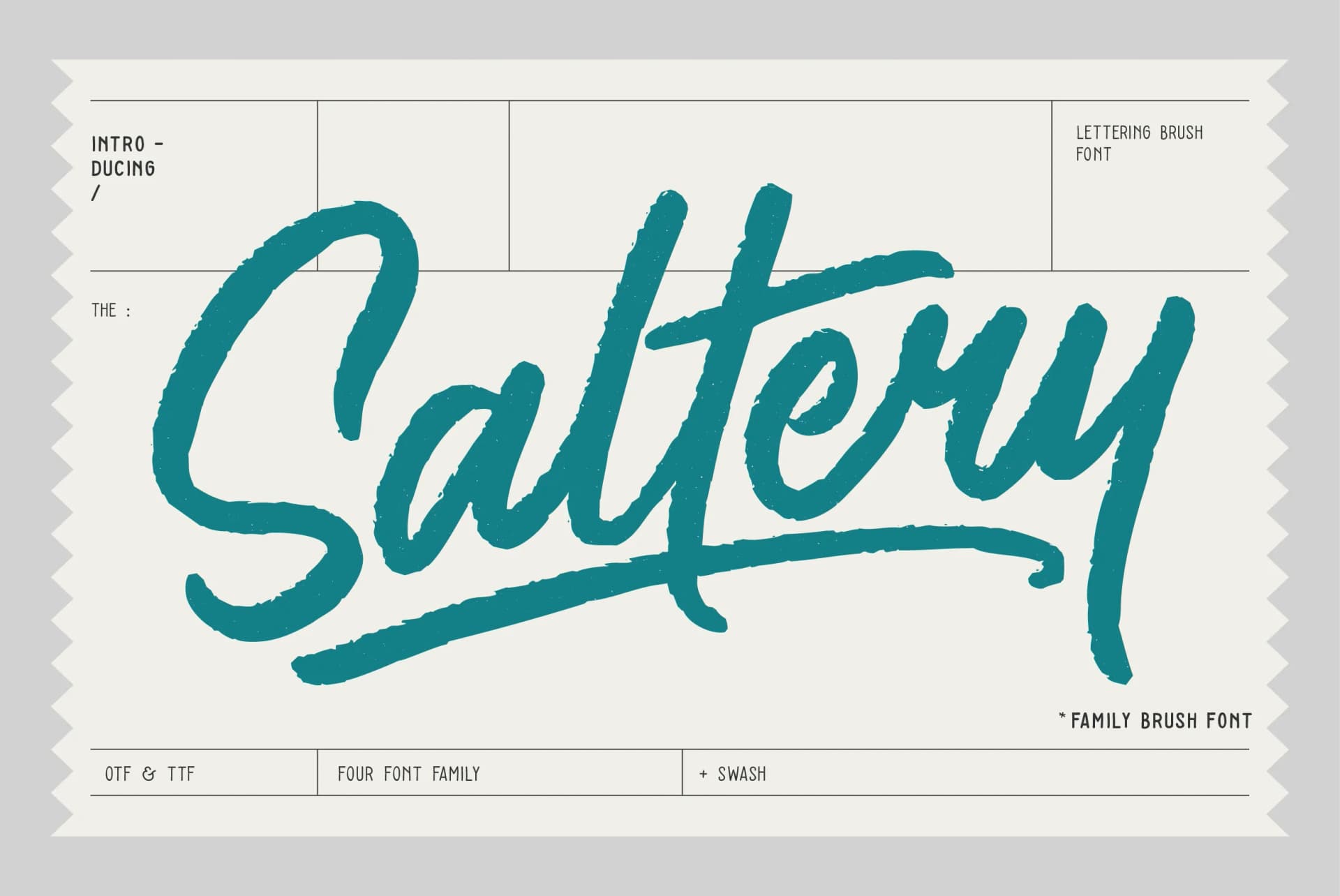
Saltery by Pana Type is a contemporary brush script that captures the organic energy of hand-lettering while maintaining precise control and consistency. Designed for creators seeking authentic, textured letterforms, Saltery brings warmth and personality to any project that demands a human touch. The font excels across several creative applications. It's particularly well-suited for boutique cosmetics and artisan product packaging, where its authentic brush character strengthens brand identity. Wedding stationery designers will appreciate how Saltery brings elegance to invitation suites and thank-you cards without feeling overly formal. Social media creators and indie Etsy sellers find success using it for product photography text overlays and shop branding, while print-focused designers leverage it for custom greeting cards and handmade craft signage. What sets Saltery apart is its versatility across multiple weights and stroke variations. The font family includes standard, rough, alternate, and swash versions, offering flexibility to match different design moods, from polished to deliberately imperfect. This range of stylistic options means you can express both refined and playful aesthetics within a single font family. Whether you're designing labels for small-batch goods, crafting wedding materials, or adding personality to brand communication, Saltery delivers the handcrafted aesthetic professionals demand. Discover how this versatile brush script can transform your designs by adding Saltery to your Creative Fabrica collection today.
- Elegant, Flowing, Saltery
Saltery Font is a script font that shines as a display or heading face. Pair it with a clean sans-serif or serif font for body text — the contrast creates a clear hierarchy while the two styles stay balanced and easy to read.
Saltery Font
by Pana Type